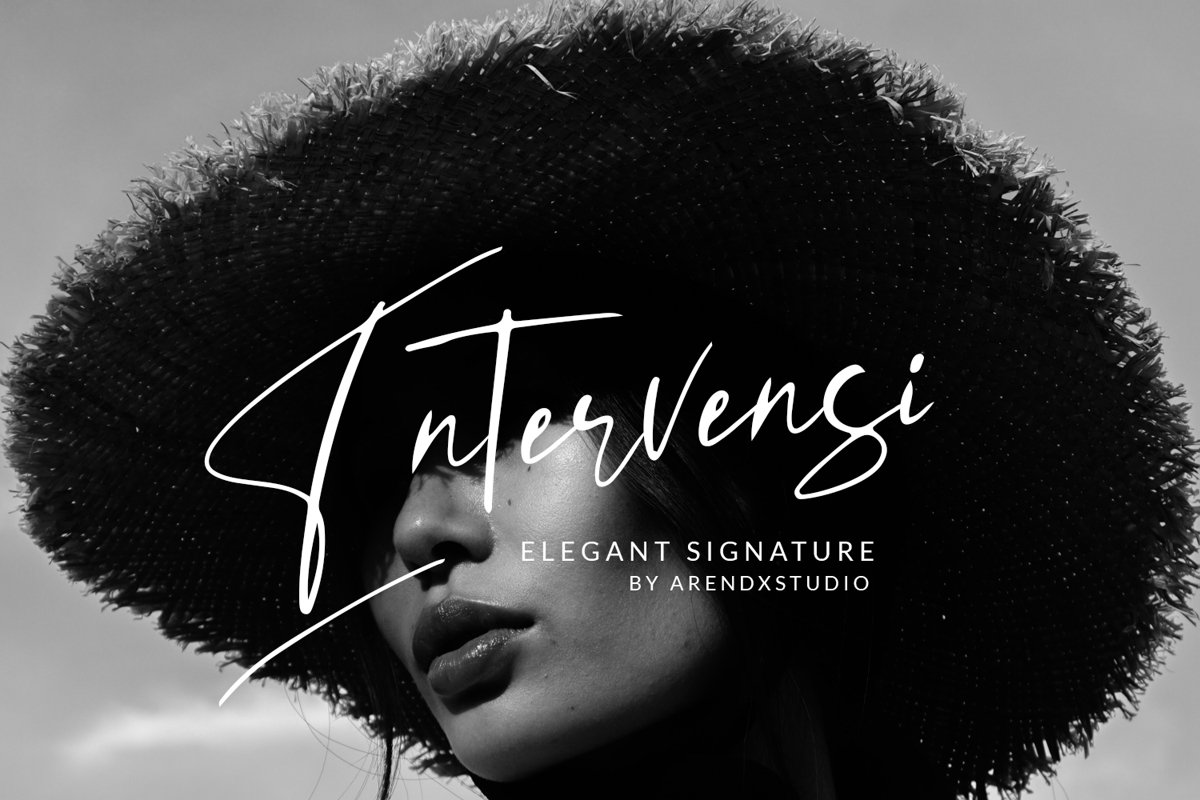
Intervensi Elegant Signature
Intervensi
introducing Intervensi Elegant Signature, using style hand made with brushing. bromello a beautiful for wedding card design, logotype, website header, fashion design and any more. Features :
• Character Set A-Z
• Numerals & Punctuations (OpenType Standard)
• Accents (Multilingual characters)
• Swash